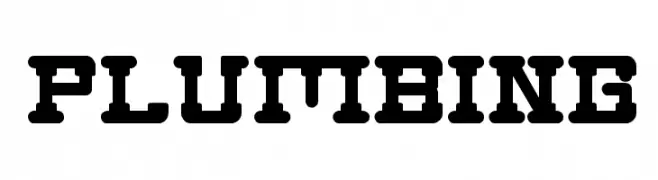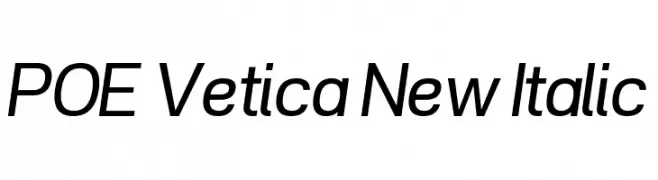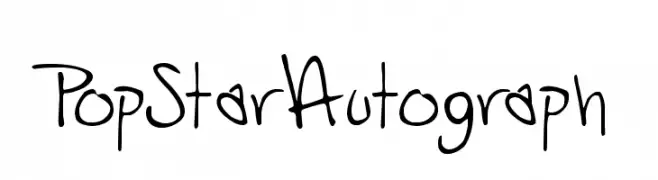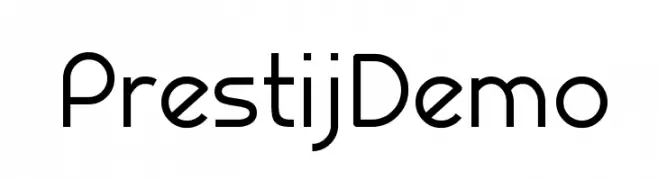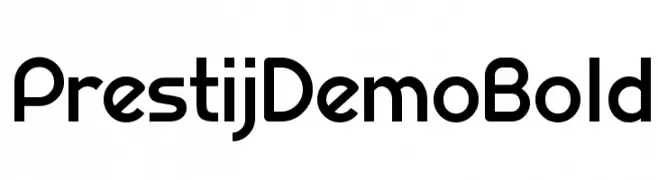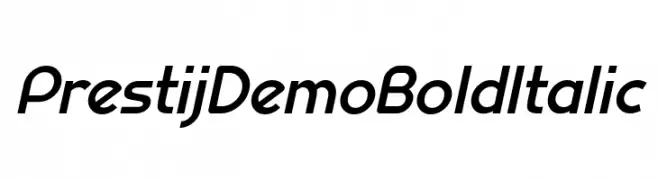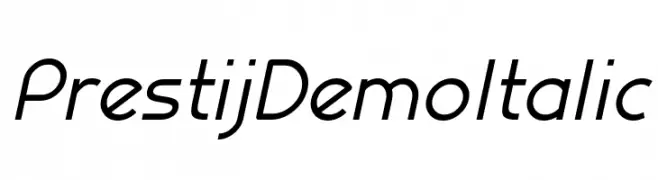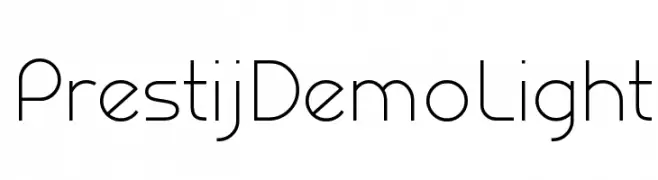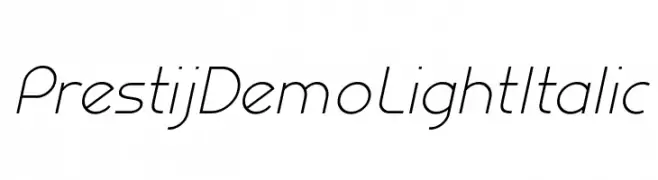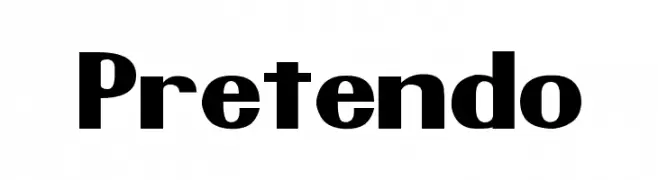
A gothic, thorny font with sharp, decorative elements.
A bold, rounded font with a playful and friendly style.
A bold, geometric font with an industrial, stencil-like appearance.
A bold, playful handwritten font with rounded edges and a casual style.
A modern, italic sans-serif font with clean lines and balanced proportions.
A modern, dotted font with geometric precision and playful design.
A bold, jagged font with a dripping, horror-themed design.
A playful and modern font with smooth, flowing characters and a whimsical touch.
A playful, handwritten-style font with dynamic, autograph-like strokes.
A playful, handwritten font with a dynamic and energetic autograph style.
A modern, geometric sans-serif font with smooth, rounded edges.
A bold, modern sans-serif font with clean, rounded edges and uniform stroke width.
A bold, italic font with smooth curves and a modern, dynamic style.
A sleek, modern italic font with smooth curves and consistent stroke width.
A sleek, modern font with clean lines and a minimalist aesthetic.
A sleek, modern, and light italic font with elegant elongated characters.
An artistic serif font with unique, irregular strokes and elegant flair.
A distinctive font with a hand-drawn, elegant style and slight serifs.
A whimsical and alien-like font with elongated, curved letterforms and bold numerals.
A playful, hand-drawn font with a whimsical and friendly style.
A fluid, cursive script font with elegant, connected letters.
A playful, bold font with thick, rounded characters and a whimsical style.
A playful, handwritten-style font with bold, rounded characters.
A bold, geometric font with a futuristic, industrial style.
A bold, geometric font with a futuristic and modern design.
A bold, flowing script font with playful, interconnected strokes.
An ornate and decorative script font with bold strokes and intricate flourishes.